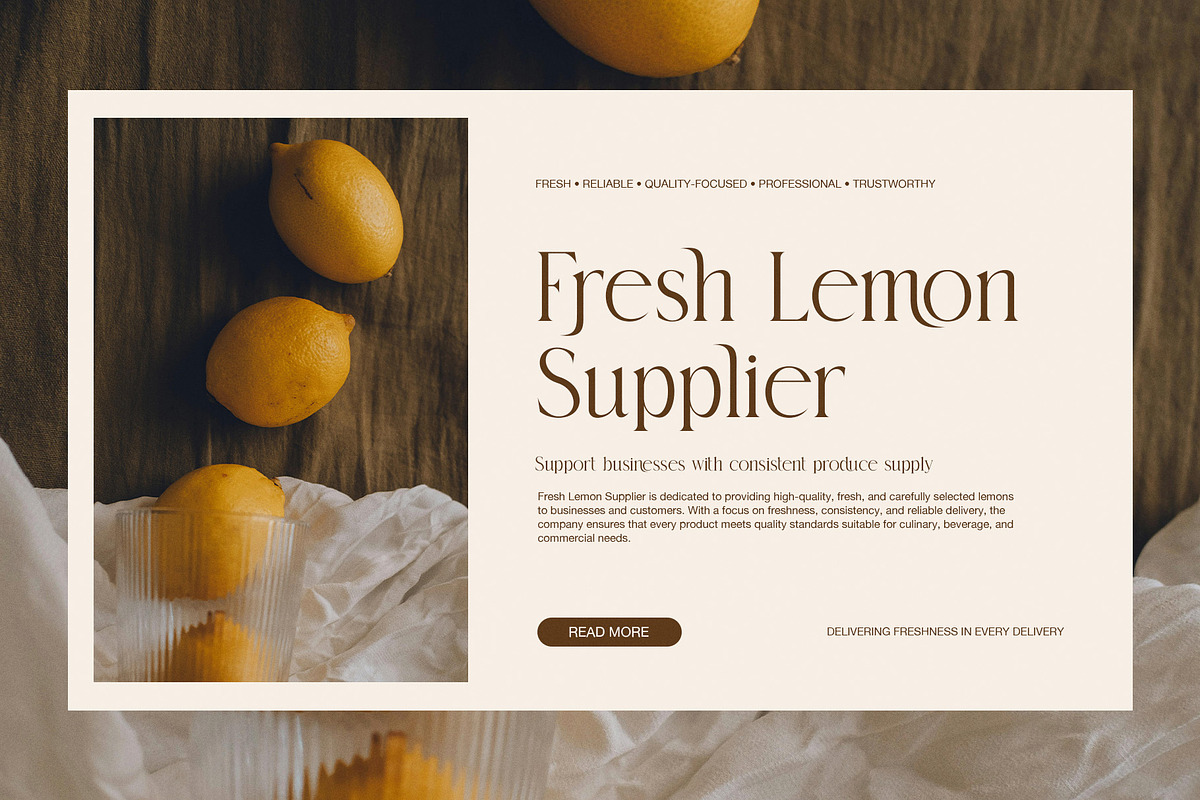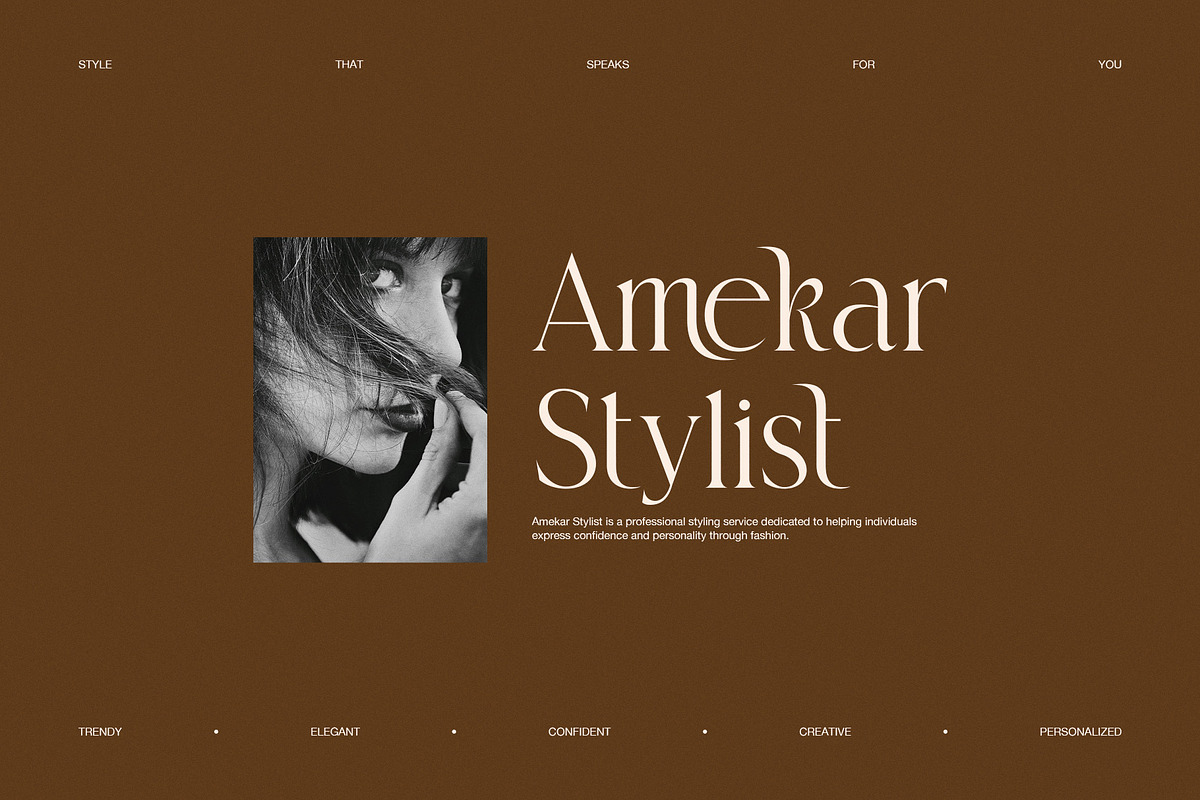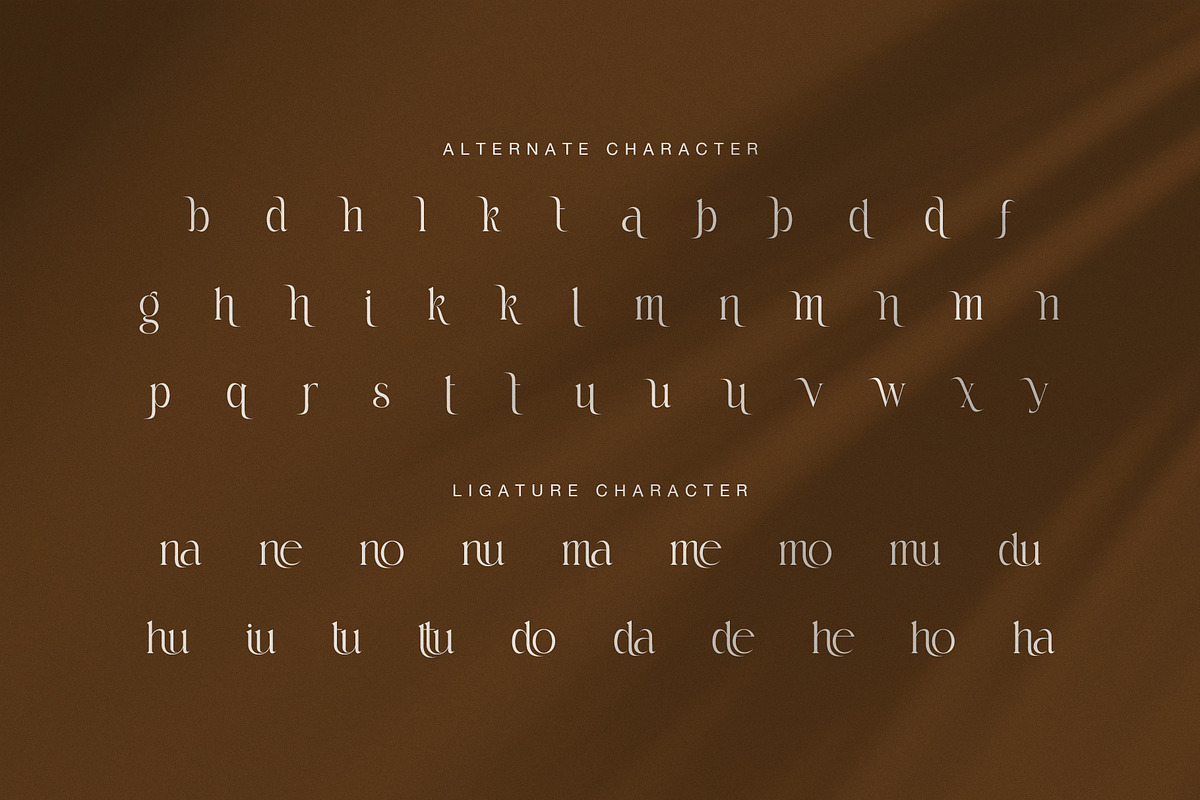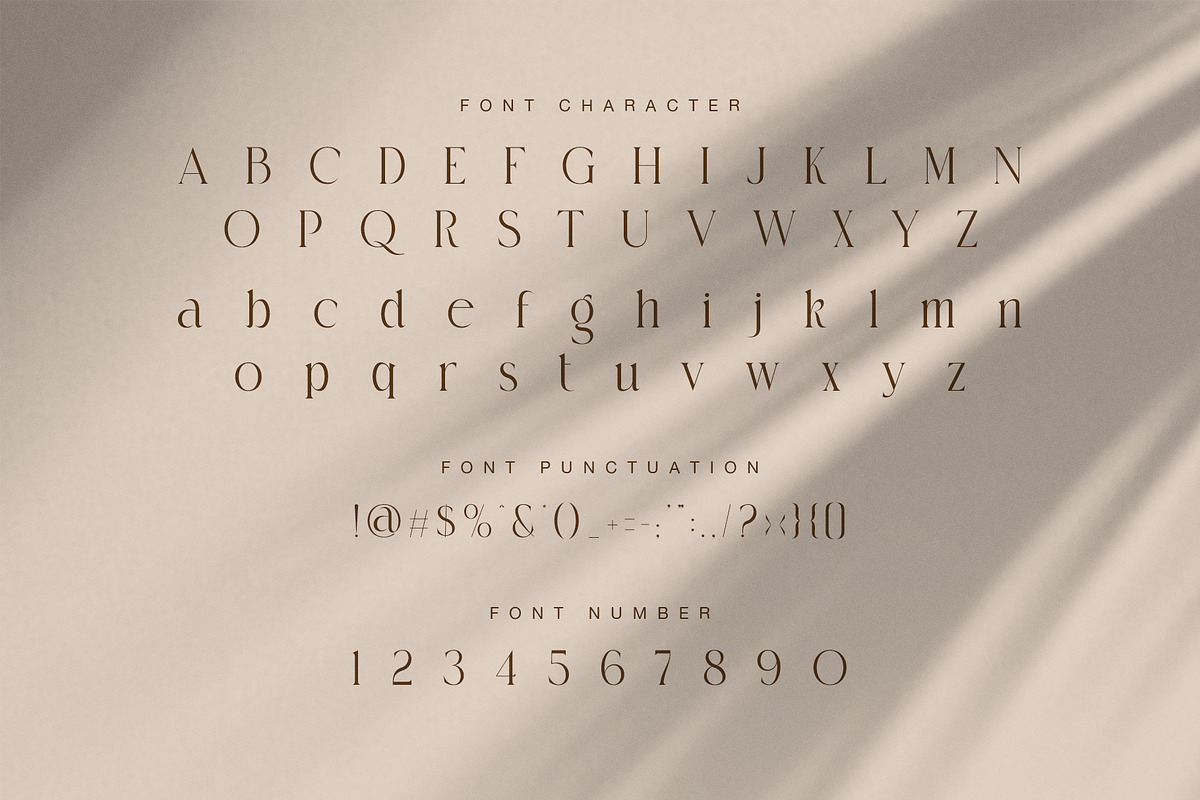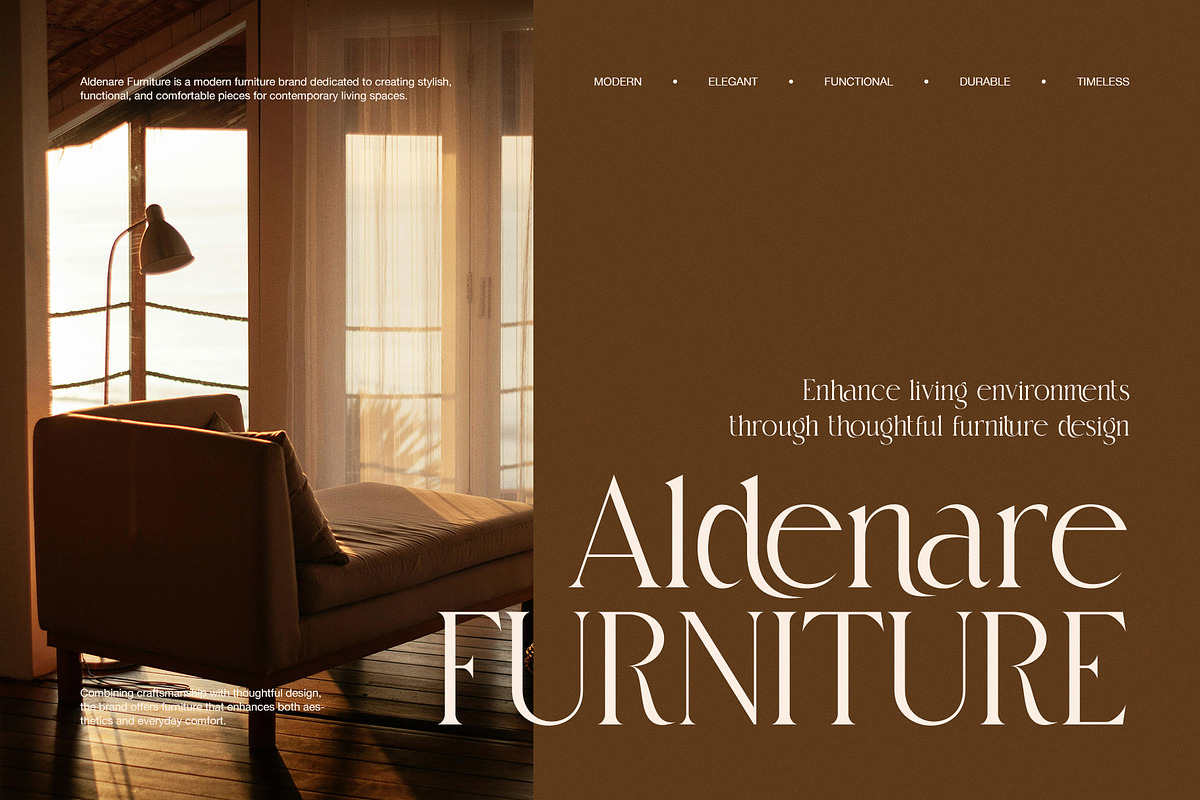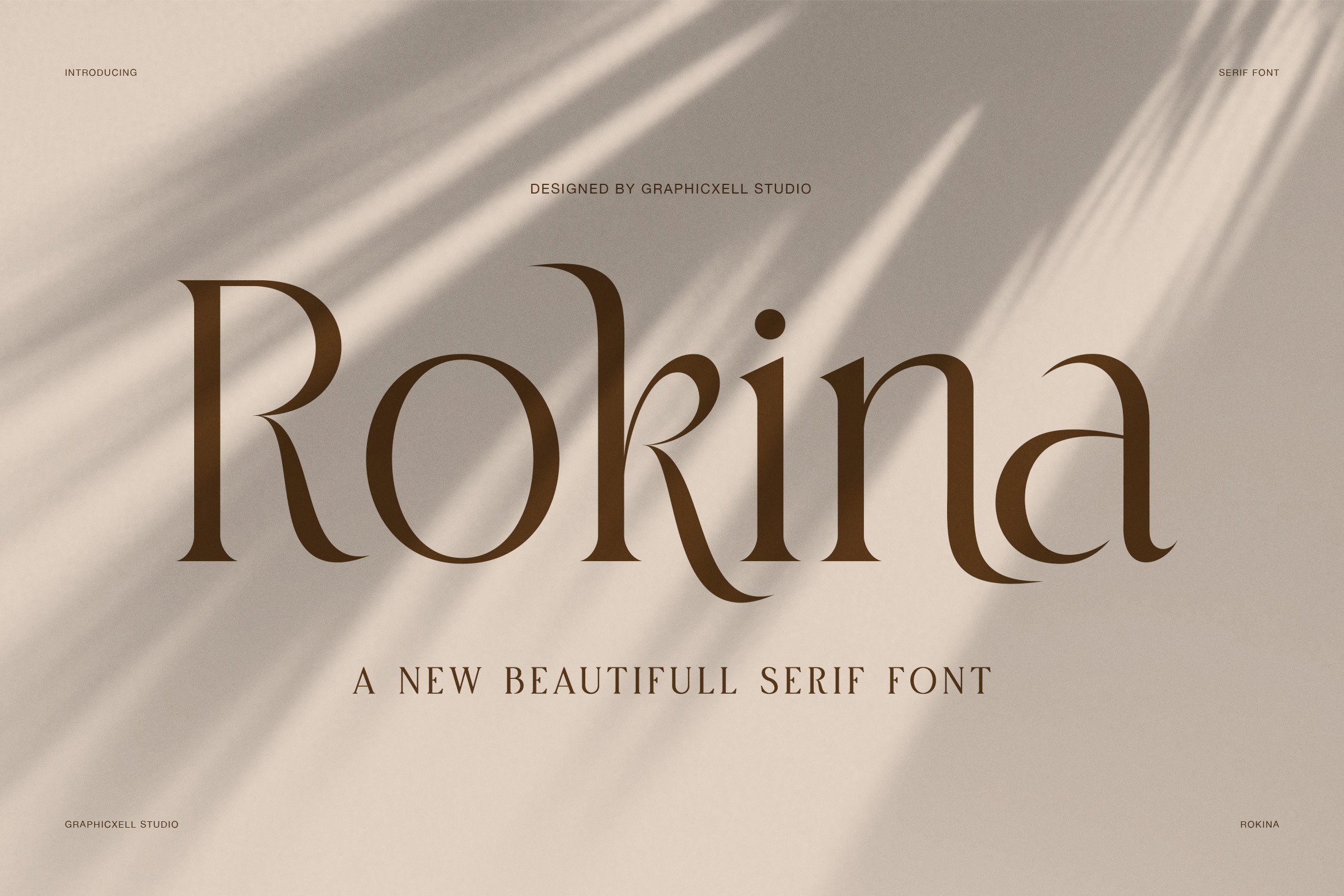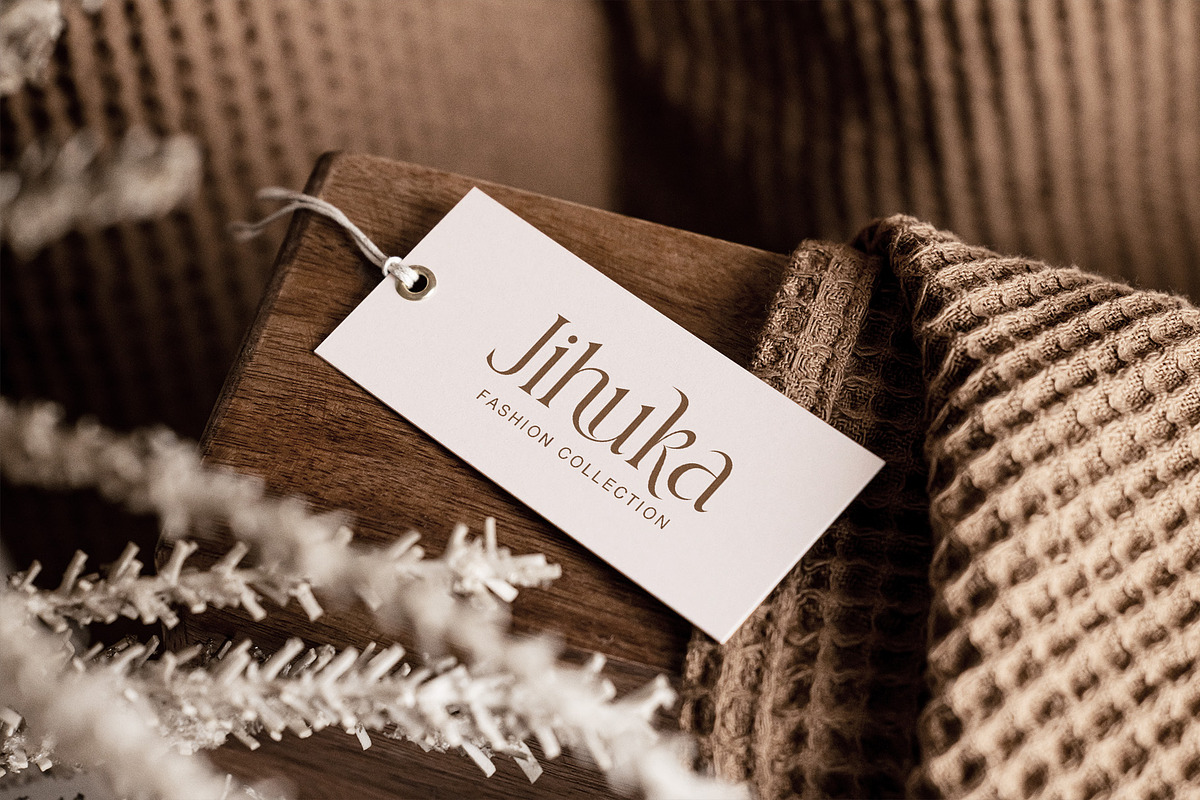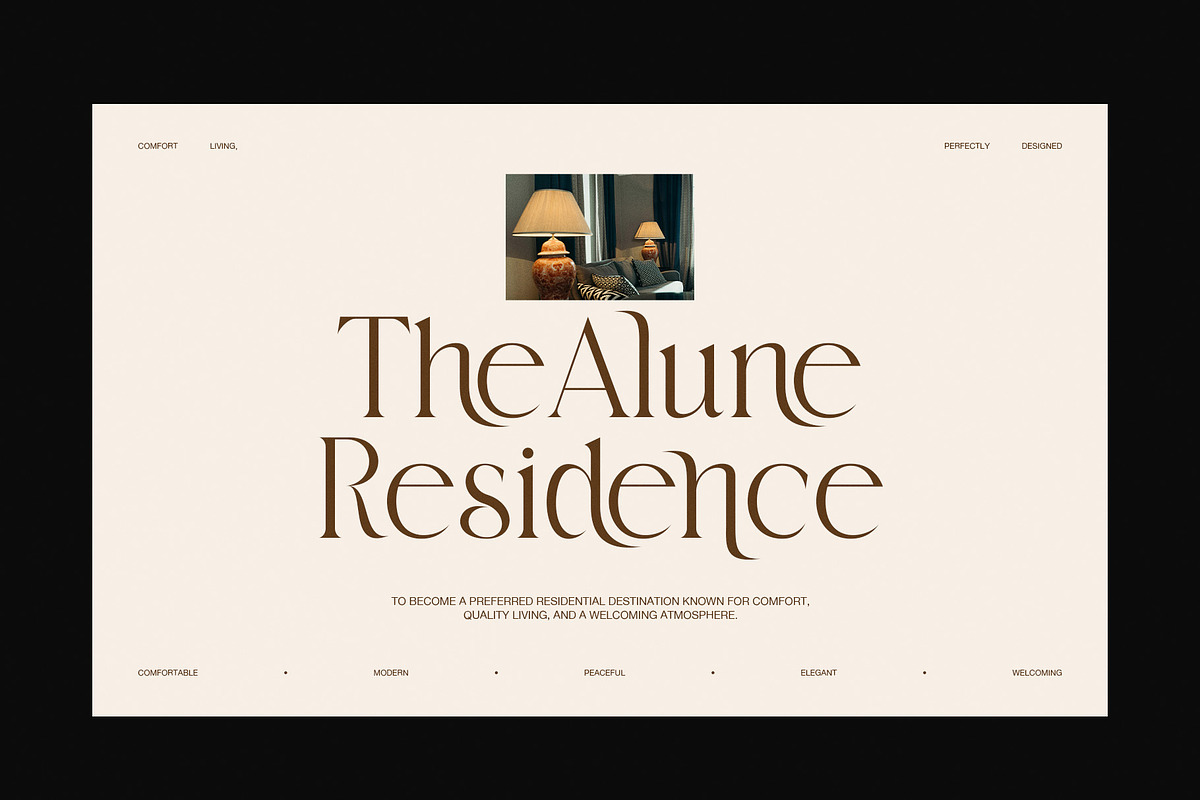
Rokina Elegant Serif Font
Rokina Elegant Serif Font is a refined display serif with a calm, modern soul. It blends thin strokes, soft contrast, and graceful curves to create a look that feels clean, stylish, and premium. At first glance, the font looks simple. However, its details reveal a strong character that feels both timeless and fresh.
The letterforms are tall, slim, and beautifully balanced. In addition, the sharp serif cuts give structure, while the flowing curves add warmth. This mix makes Rokina feel polished without looking stiff. Because of that, it works well for brands that want a soft luxury image with a modern edge.
Rokina also shines through its elegant alternates and tasteful ligatures. These features make words feel smoother and more custom. As a result, headlines and logos look more artistic and memorable. Even so, the font remains neat enough to keep a clear and readable shape in short text.
From the preview images, Rokina looks perfect for interior brands, fashion labels, furniture branding, lifestyle products, and modern packaging. It also fits beauty campaigns, boutique logos, social media posts, home decor branding, and elegant editorial layouts. Therefore, this font is a strong choice for designers who want a stylish serif with many uses.
Main Features
- Elegant serif style with a modern mood
- Clean, slim, and balanced letterforms
- Beautiful alternates for unique text looks
- Smooth ligatures for a refined flow
- High-end feel for branding and display use
- Suitable for luxury, lifestyle, and editorial design
Why Designers Love It
Rokina gives words a graceful voice. Moreover, it adds charm without too much decoration. The clean structure helps layouts feel professional, while the soft curves bring personality. For that reason, it is easy to use across many creative projects.
This font is ideal for logos, headlines, packaging, invitations, business cards, posters, and social content. It also works beautifully for brand identities in fashion, home living, beauty, and food presentation. So, if you want a serif font that feels elegant, modern, and versatile, Rokina is a beautiful choice.
Rokina Elegant Serif Font helps your design look more polished, more stylish, and more memorable. Whether you are building a luxury brand or creating a chic visual story, this font can give your work a refined and lasting impression.